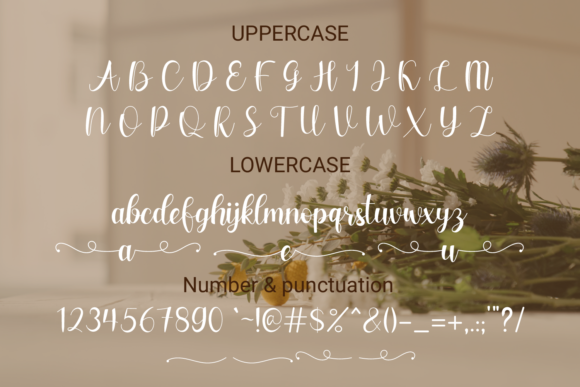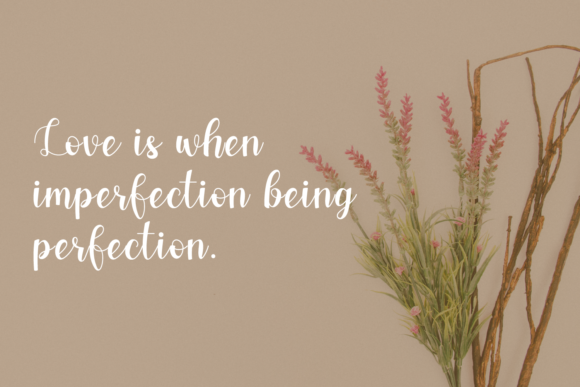
Falina Sweet Font
db-ku.com - Script & Handwritten -- Falina Sweet is an incredibly distinct, delicate and timeless handwritten font. It looks stunning on wedding invitations, thank you cards, quotes, greeting cards, logos, business cards and every other design which needs a handwritten touch.